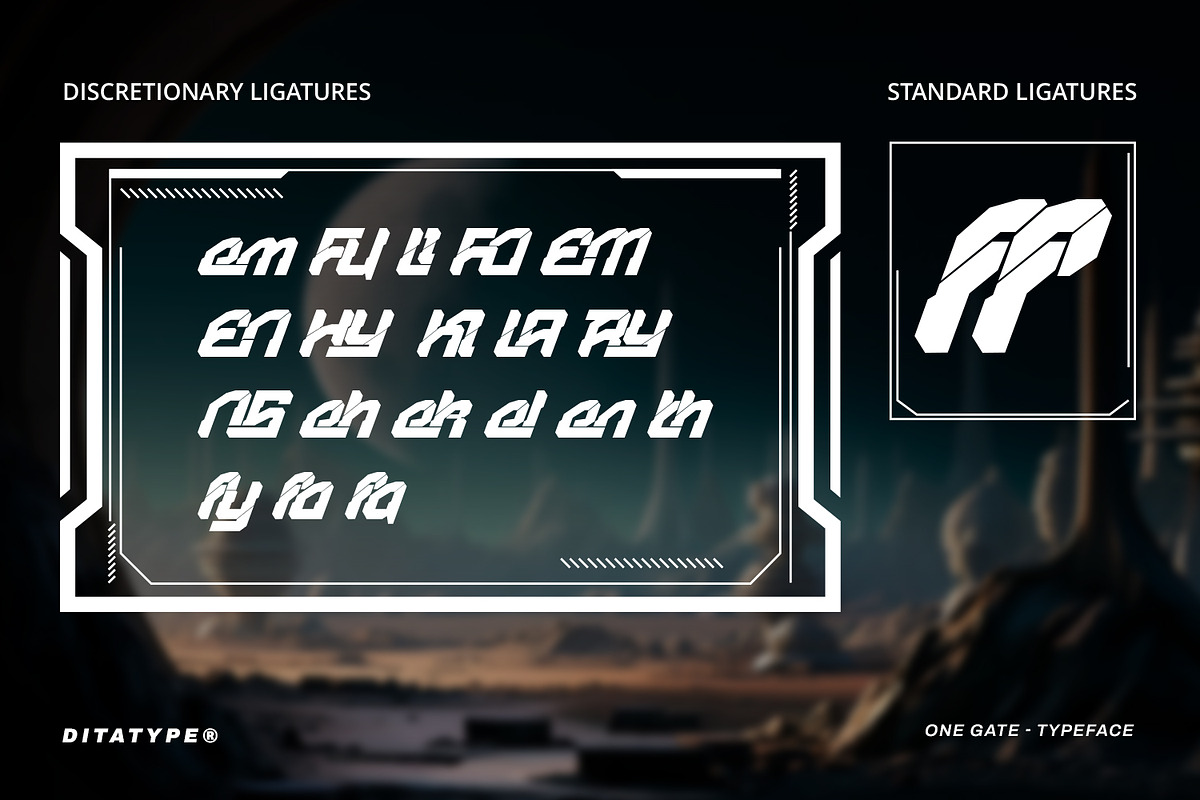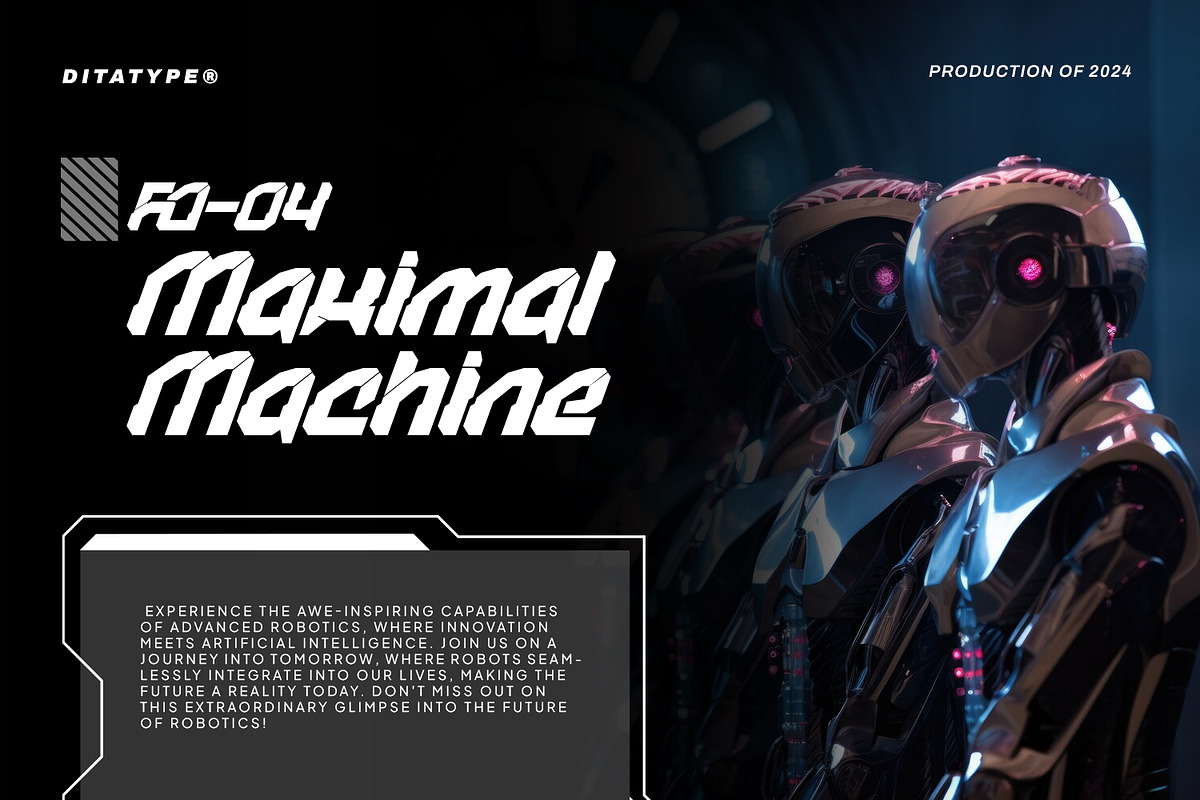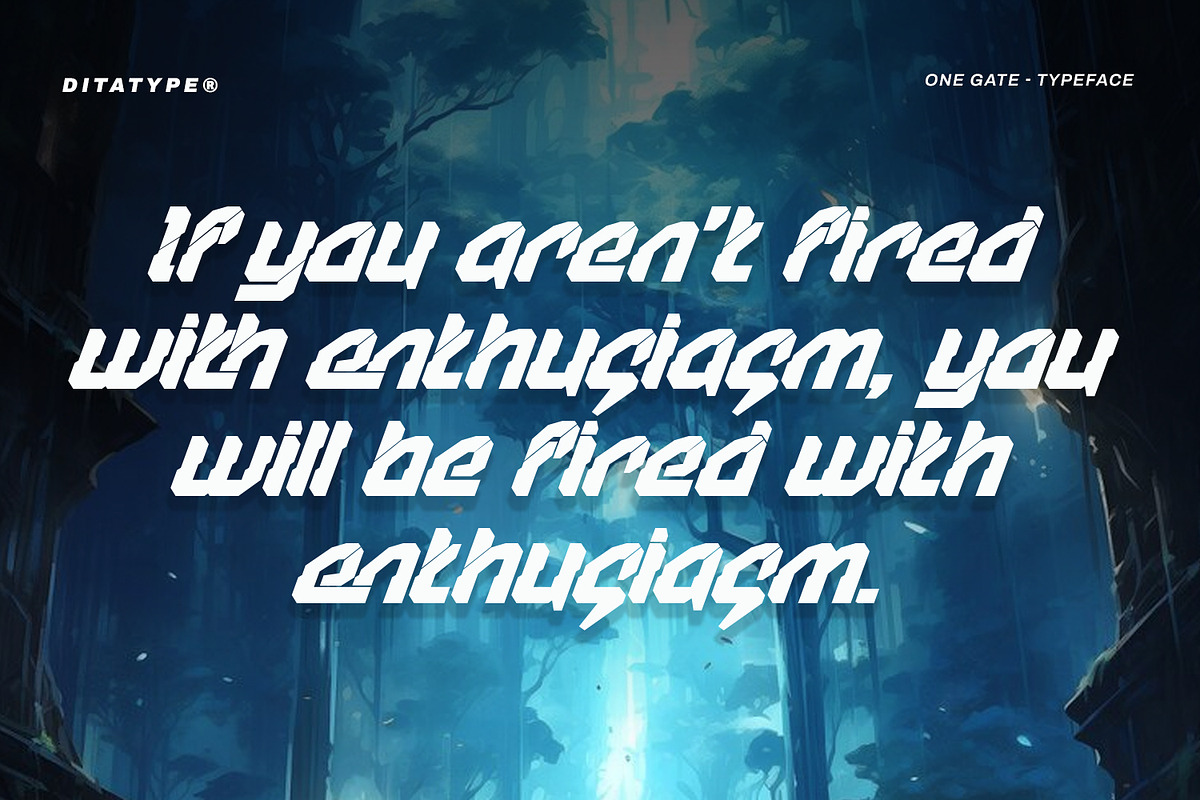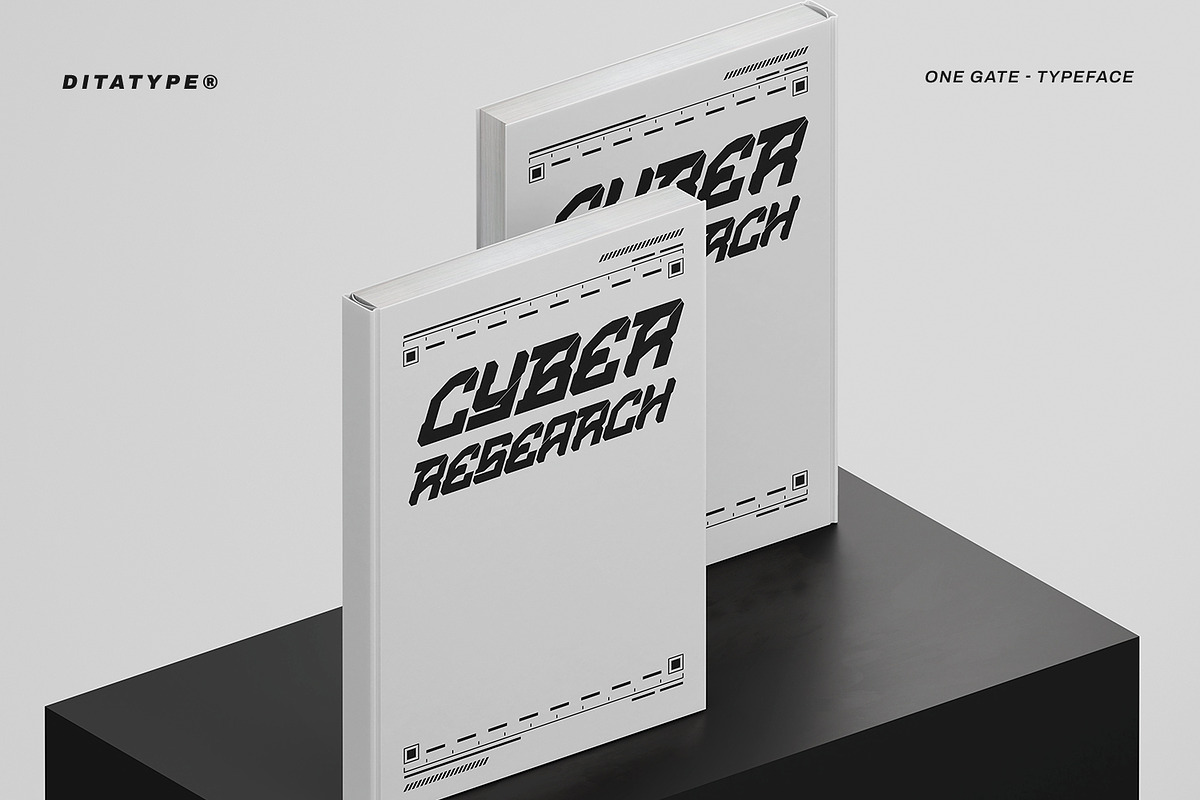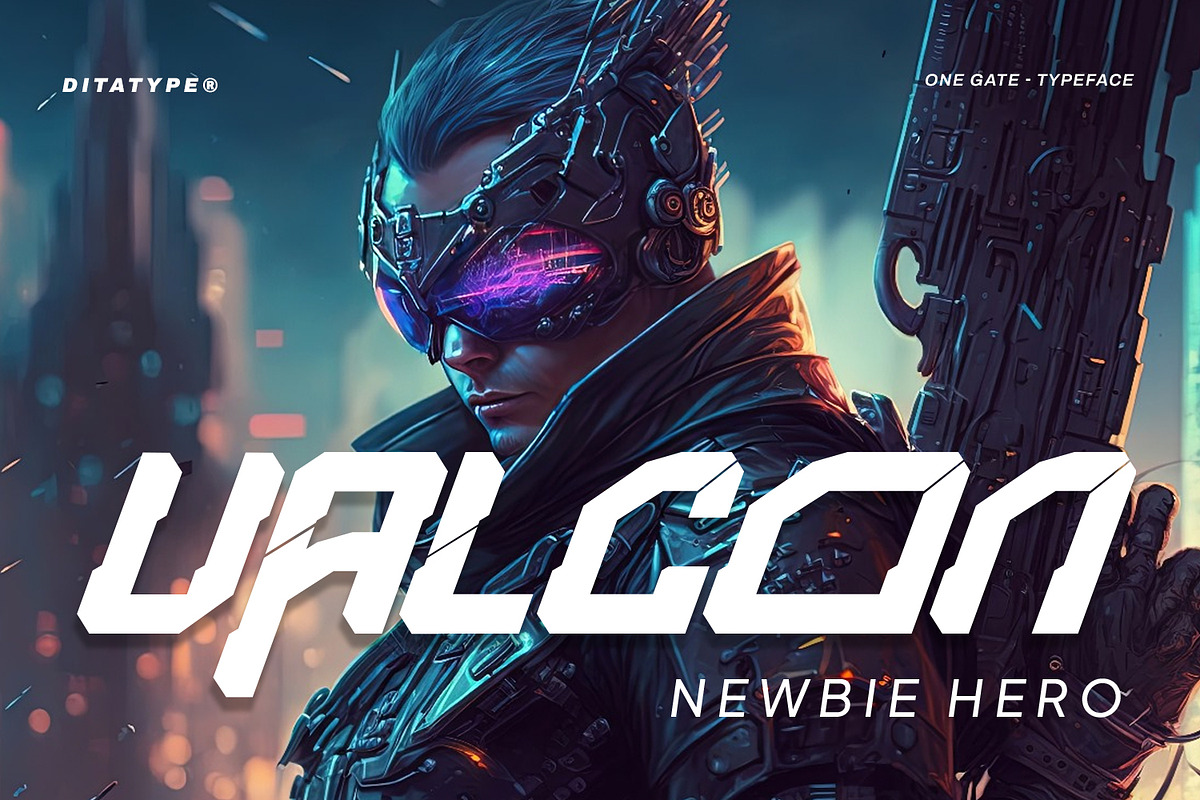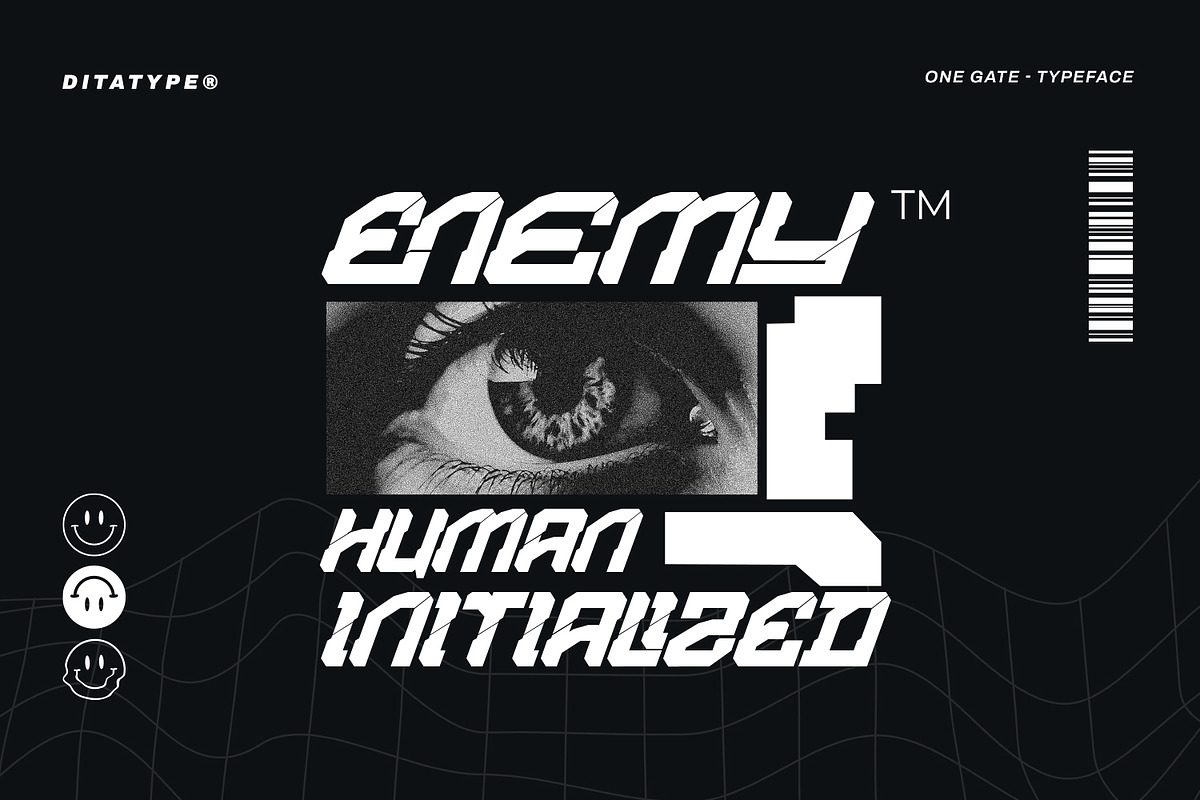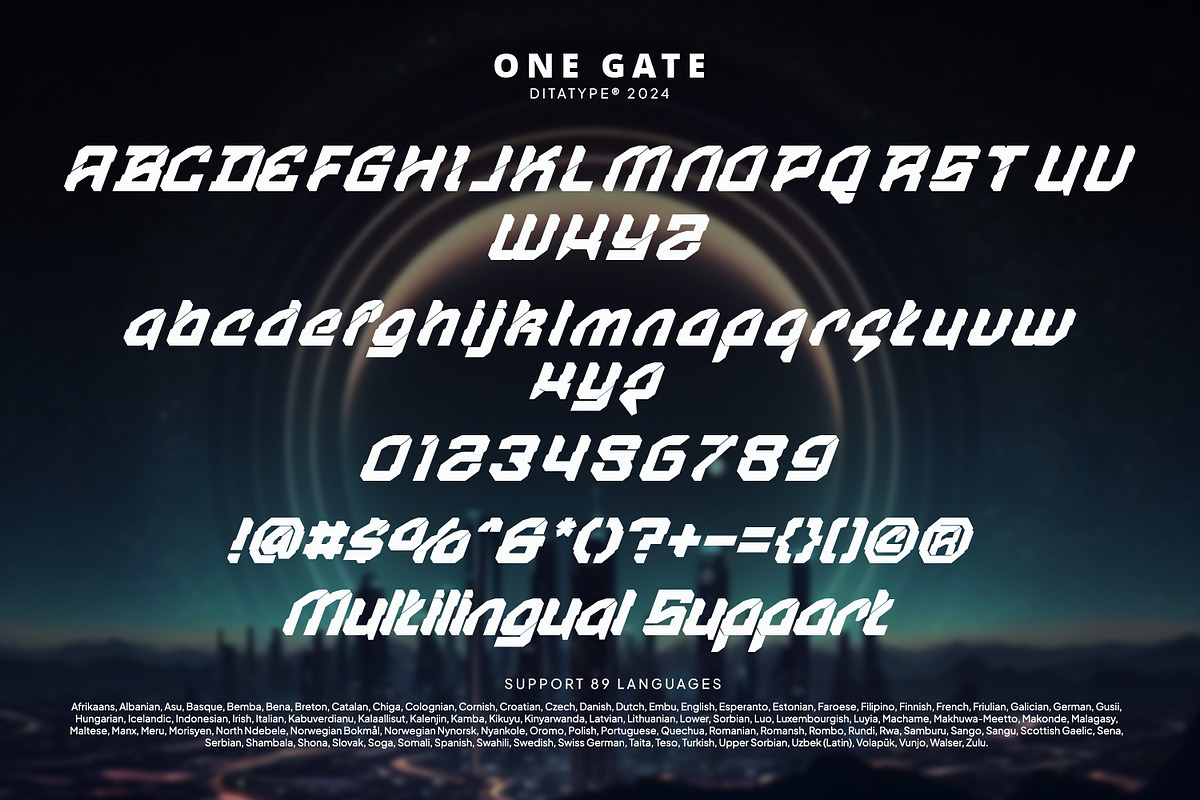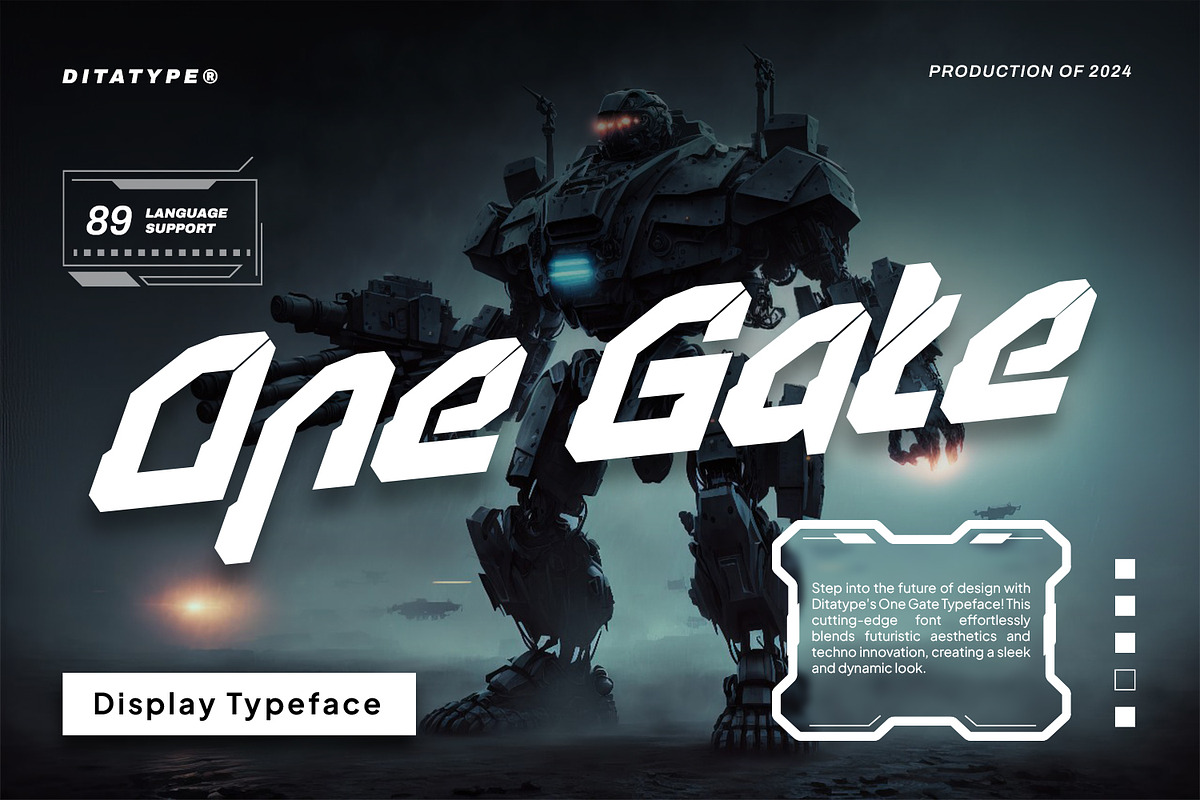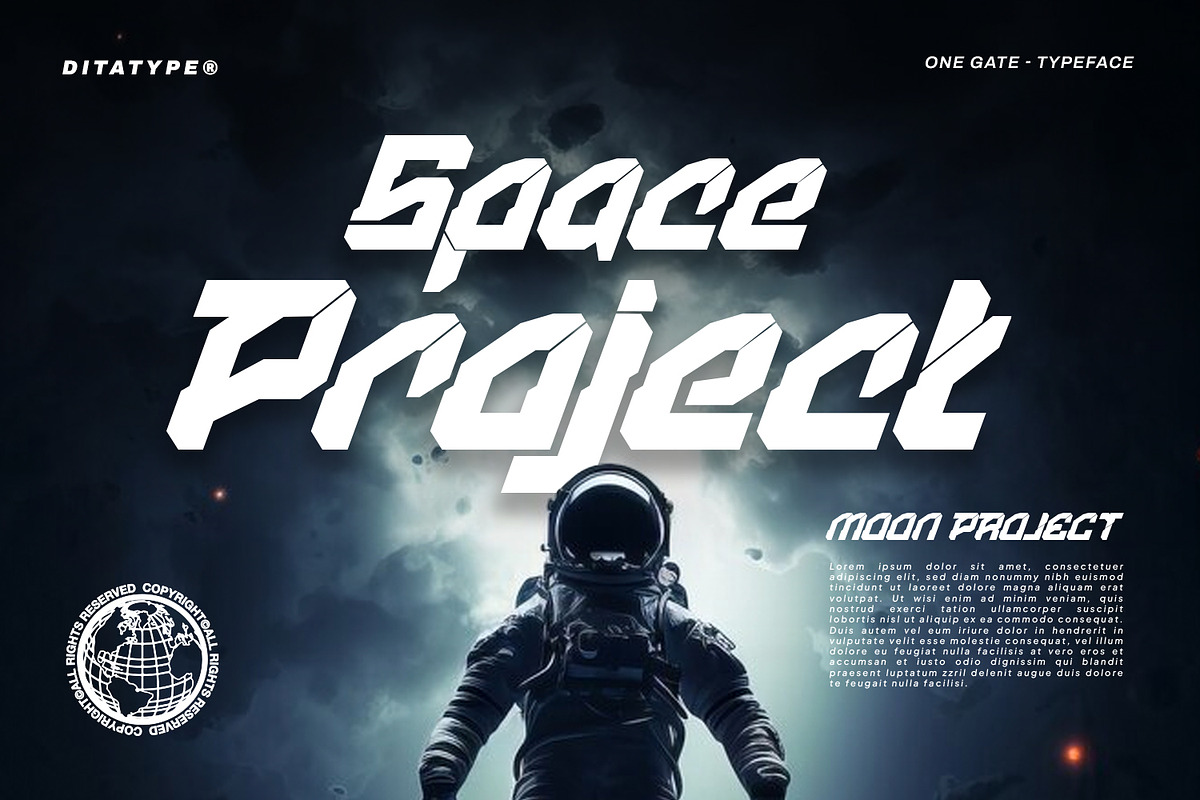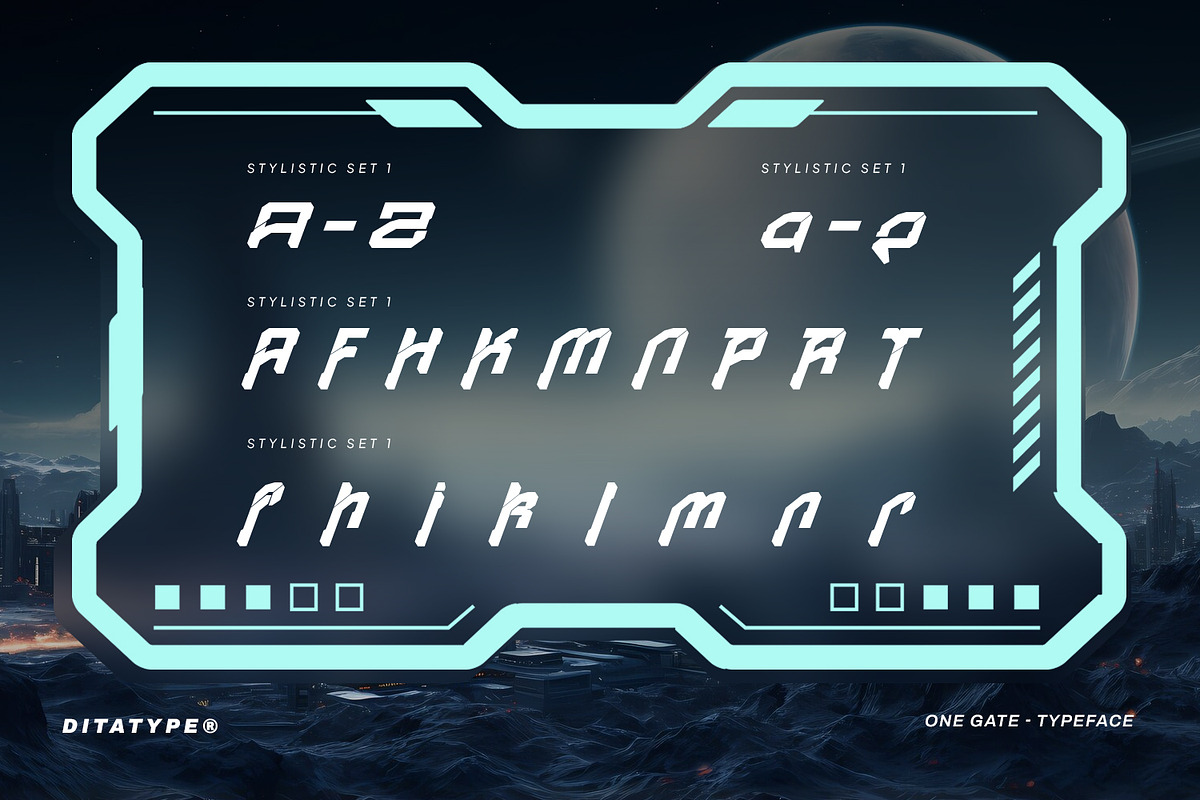
One Gate
Step into the future with One Gate, a mesmerizing display font that seamlessly merges futuristic aesthetics with cutting-edge technology. Inspired by the sleek lines and geometric shapes of modern technology, One Gate evokes a sense of progress and advancement. Its futuristic design elements give the font a sense of timelessness.
With a thick weight and low contrast, One Gate commands attention with its bold presence while maintaining a sense of balance and harmony. Each letter is meticulously crafted with an uneven outline, adding a touch of dynamic energy and visual interest to the font. In addition, enjoy the features here.
- Stylistic Sets
One Gate fits in headlines, logos, posters, flyers, branding materials, greeting cards, print media, editorial layouts, and many more designs. Find out more ways to use this font by taking a look at the font preview.